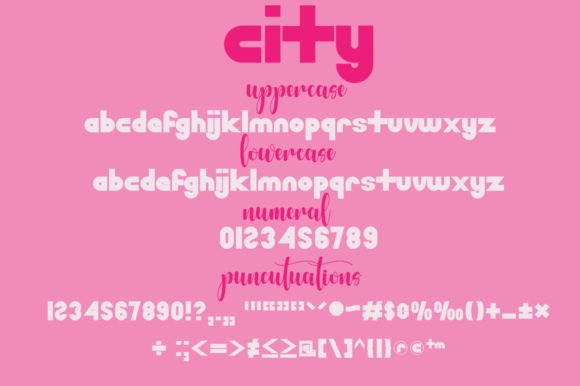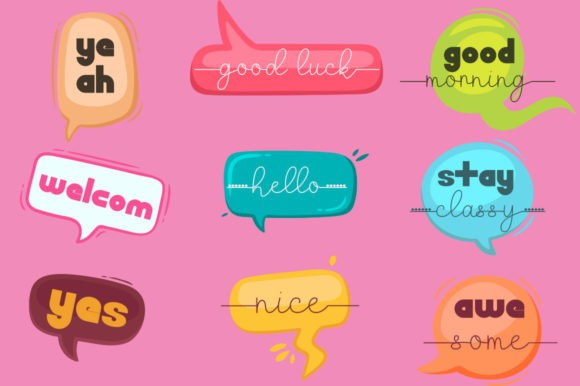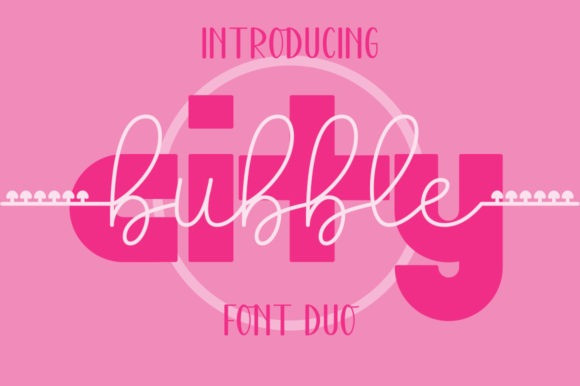
Bubble City Font
Bubbly City Font Duo is a lovely duo font (script and display). It looks stunning on wedding invitations, thank you cards, quotes, greeting cards, logos, business cards and every other design which needs a customized touch.